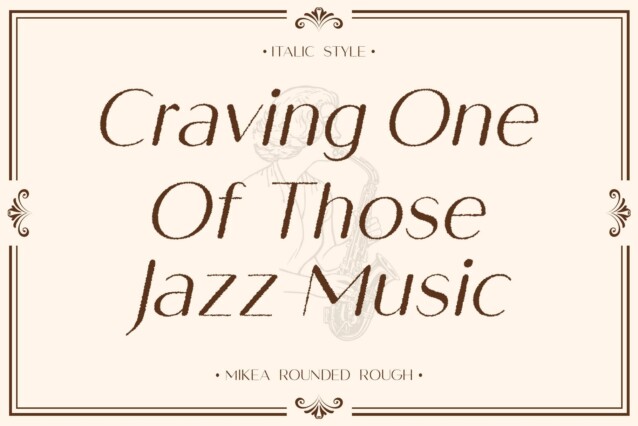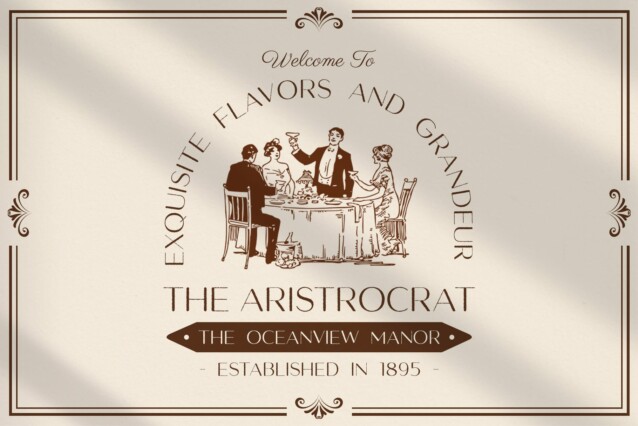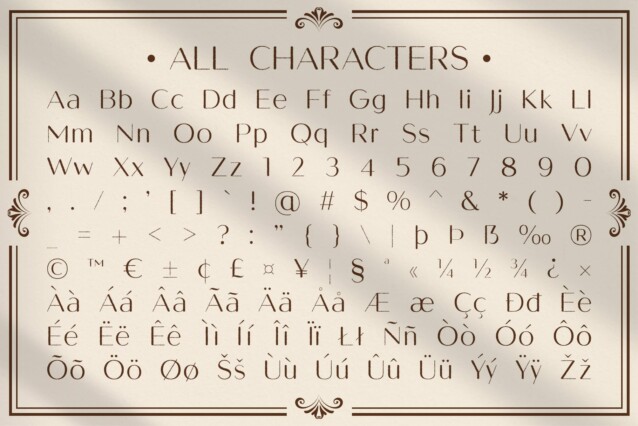
Mikea Rounded Rough Font
Mikea Rounded Rough Font is a modern sans serif font that seamlessly combines rounded, minimalist shapes with a unique rough effect, creating an elegant yet charming aesthetic. Its soft, clean lines offer a friendly and approachable vibe, making it an ideal choice for designs that aim to connect with their audience on a personal level. The rounded forms contribute to a sense of warmth, ensuring that your message is conveyed with both clarity and a touch of personality.